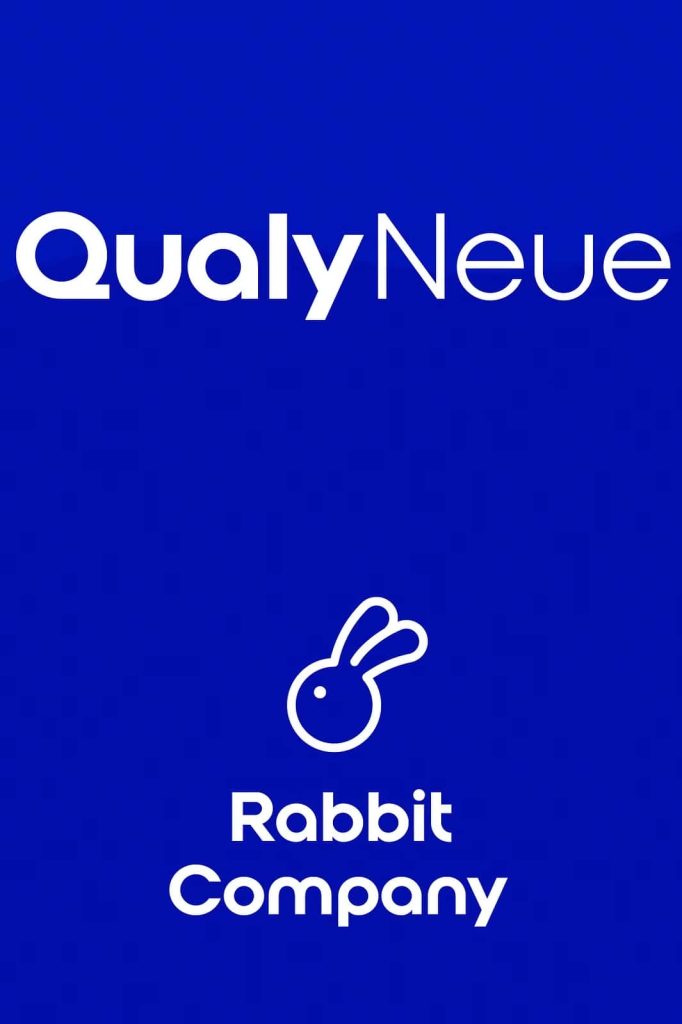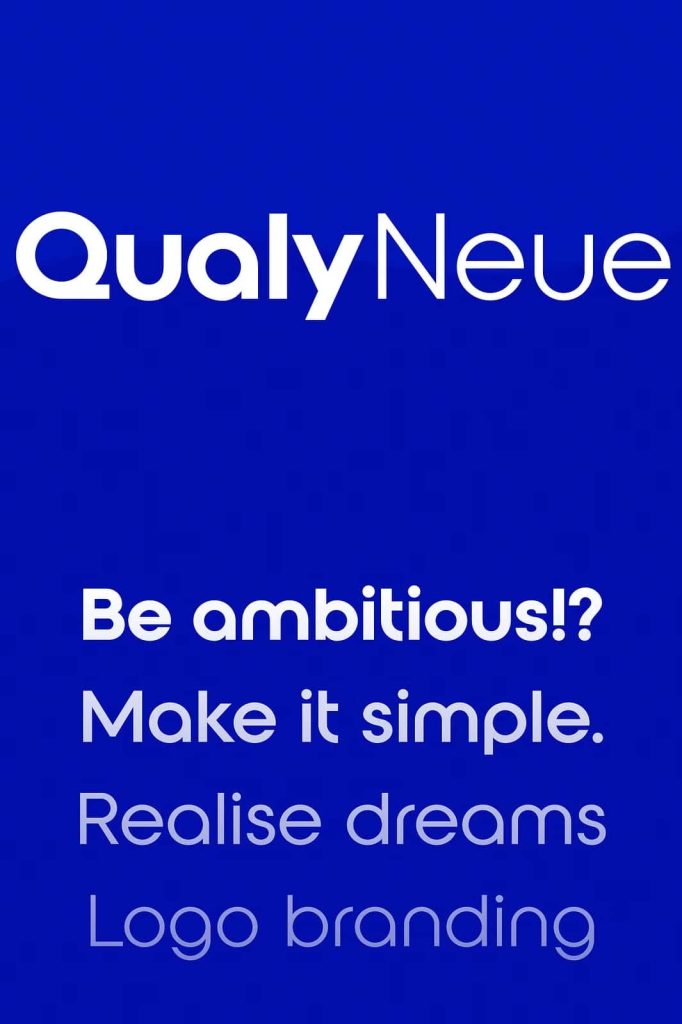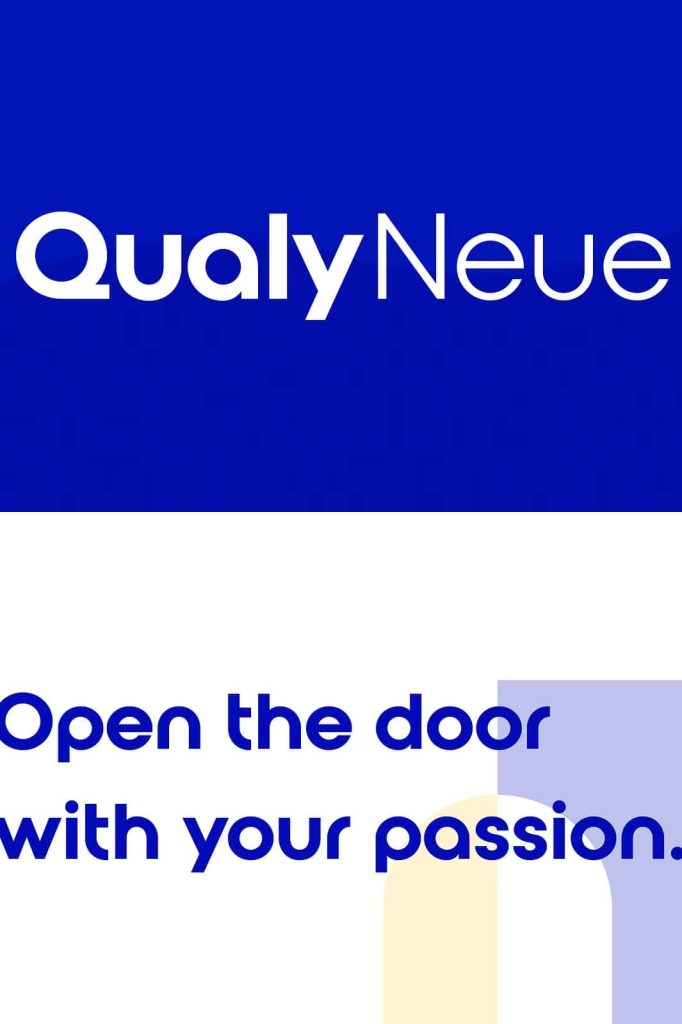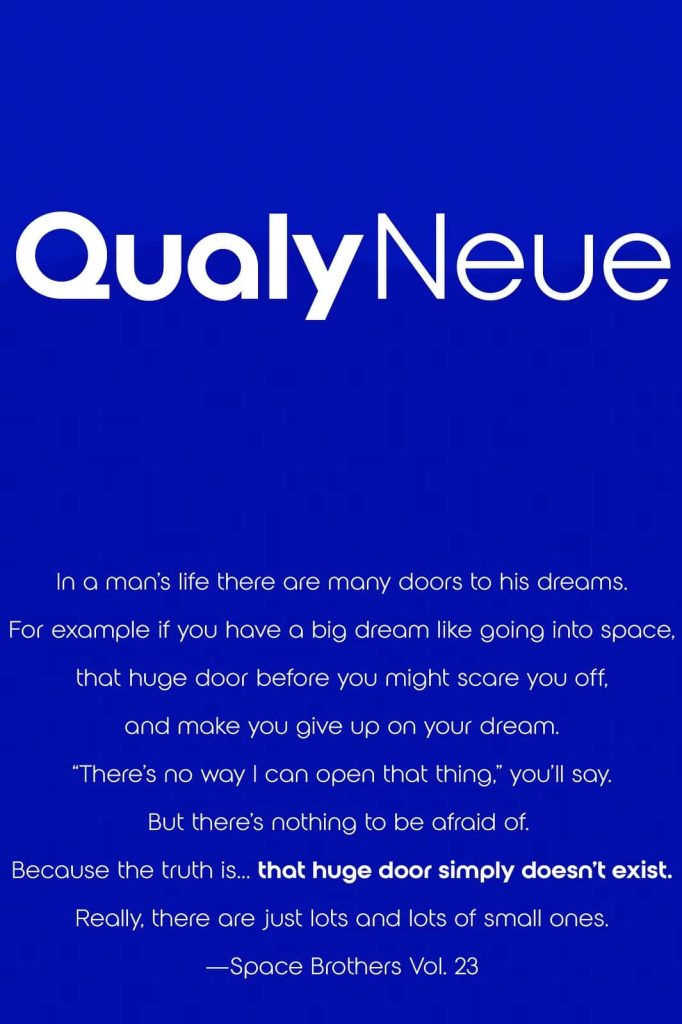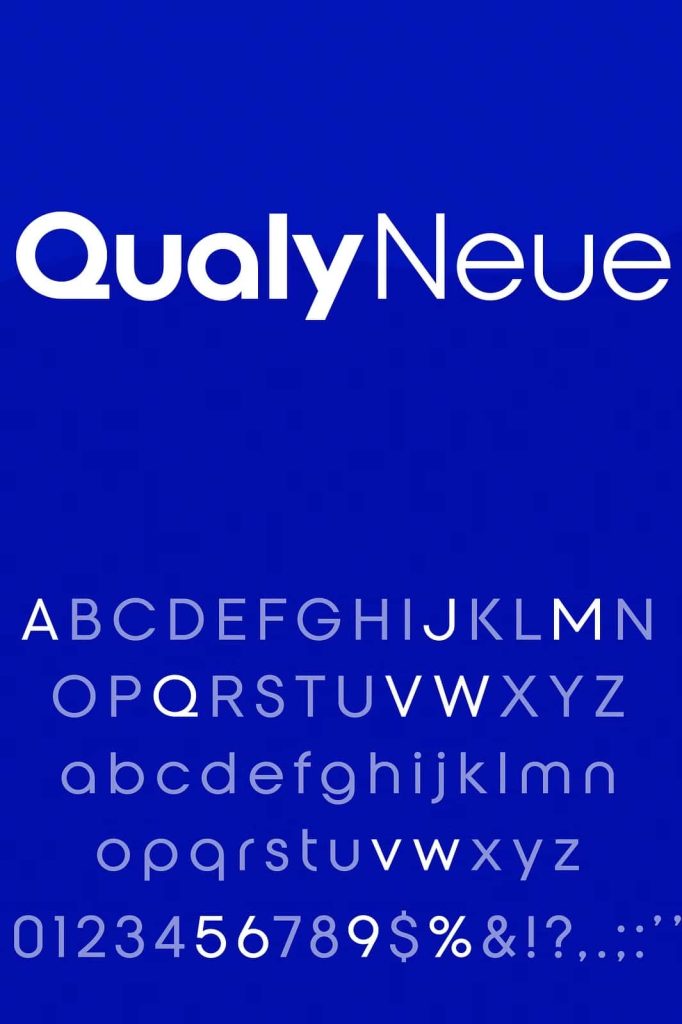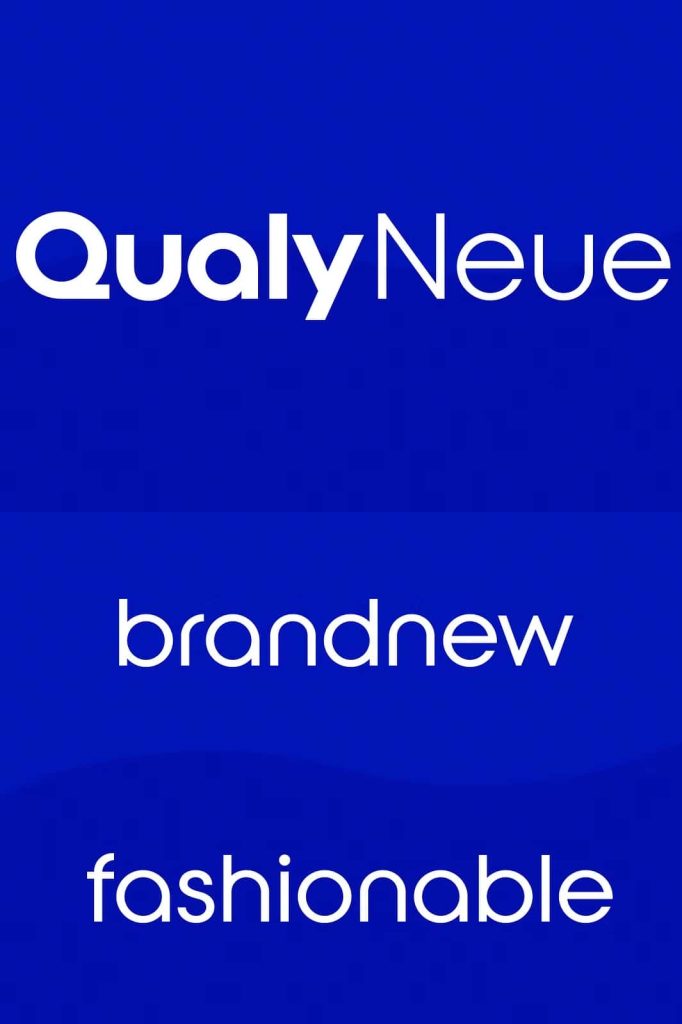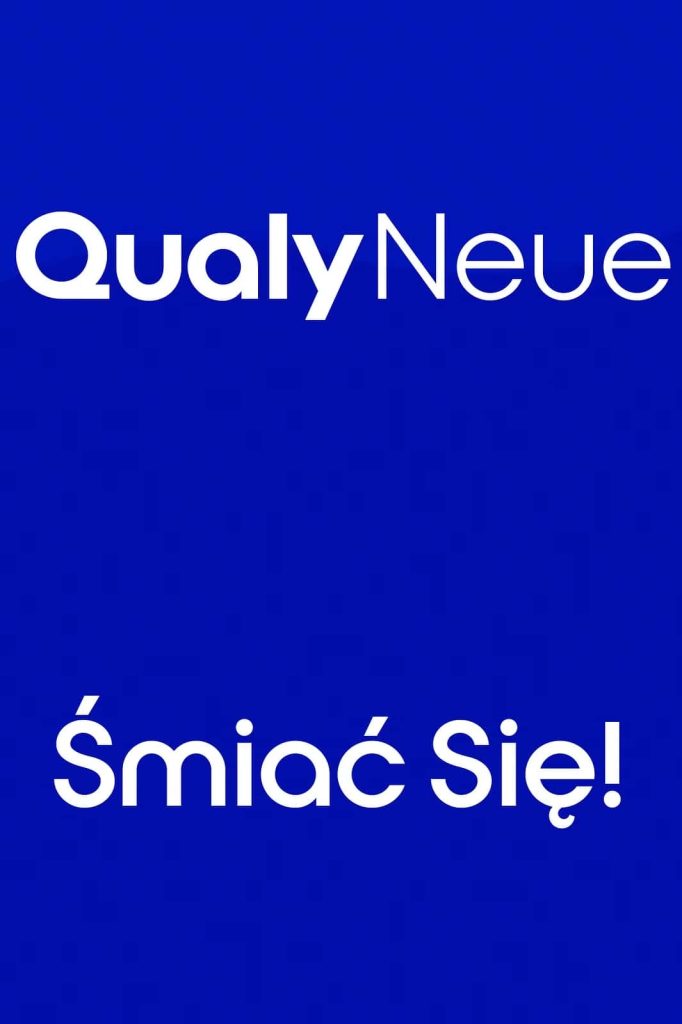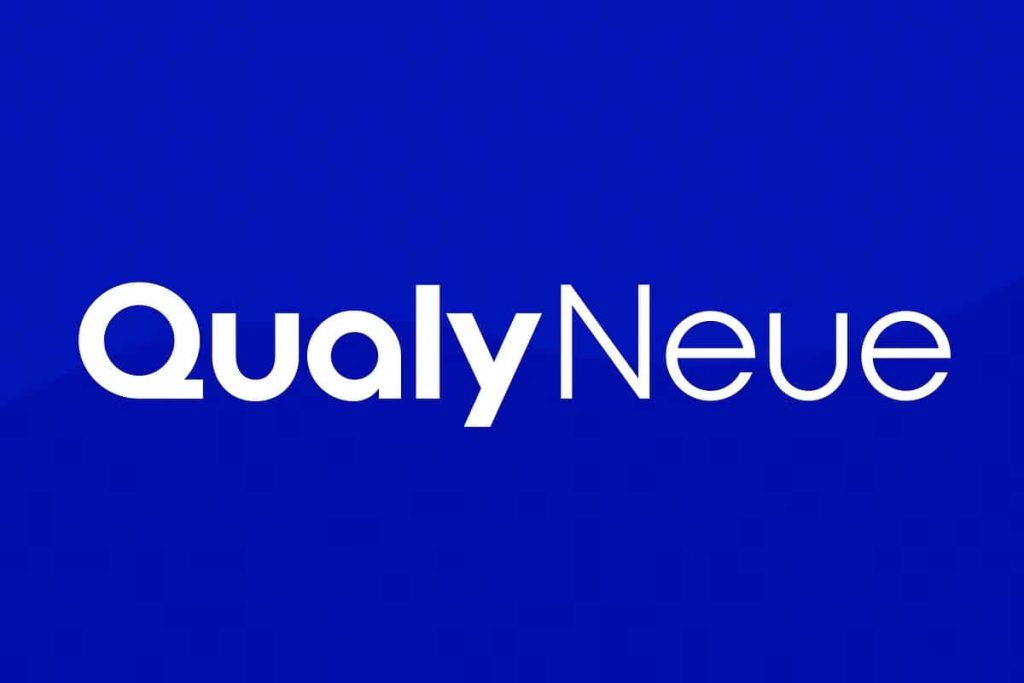
Qualy Neue Branding Font
Qualy Neue is a special font family for your logo & branding.
Every character is designed for a good logo, and Light weight is available for a short text.